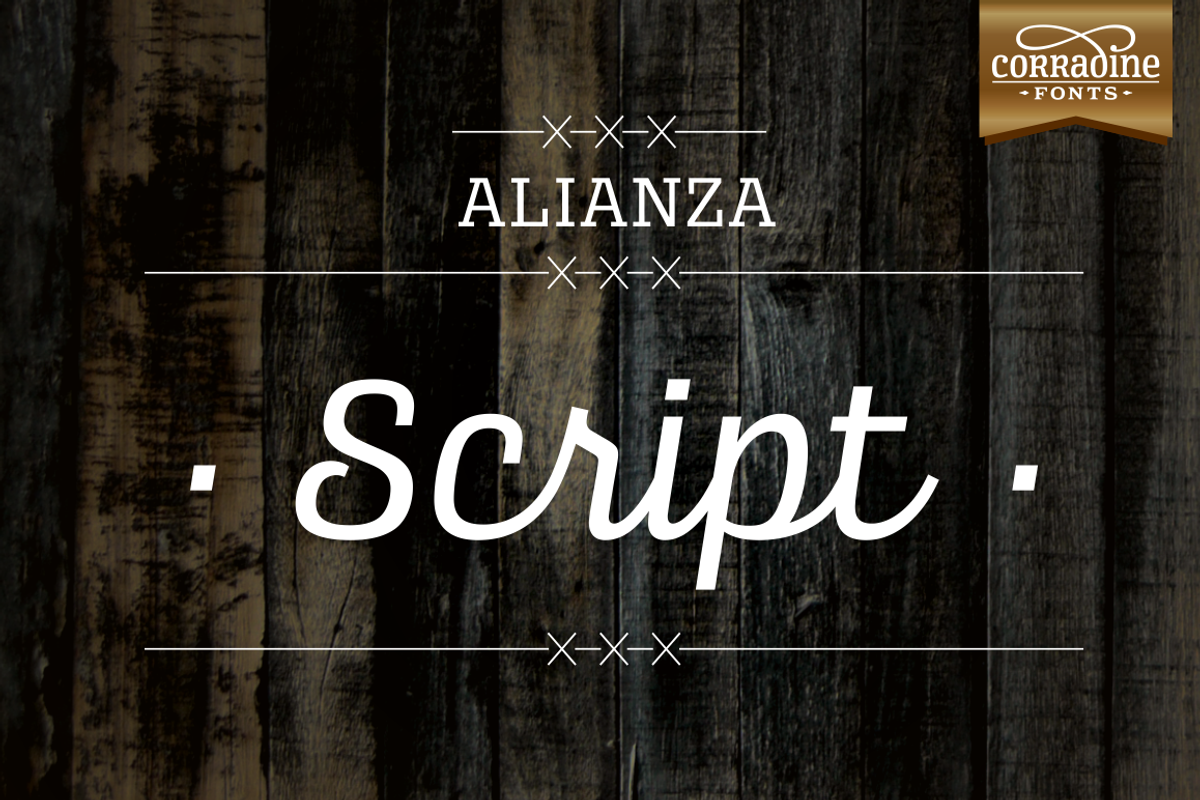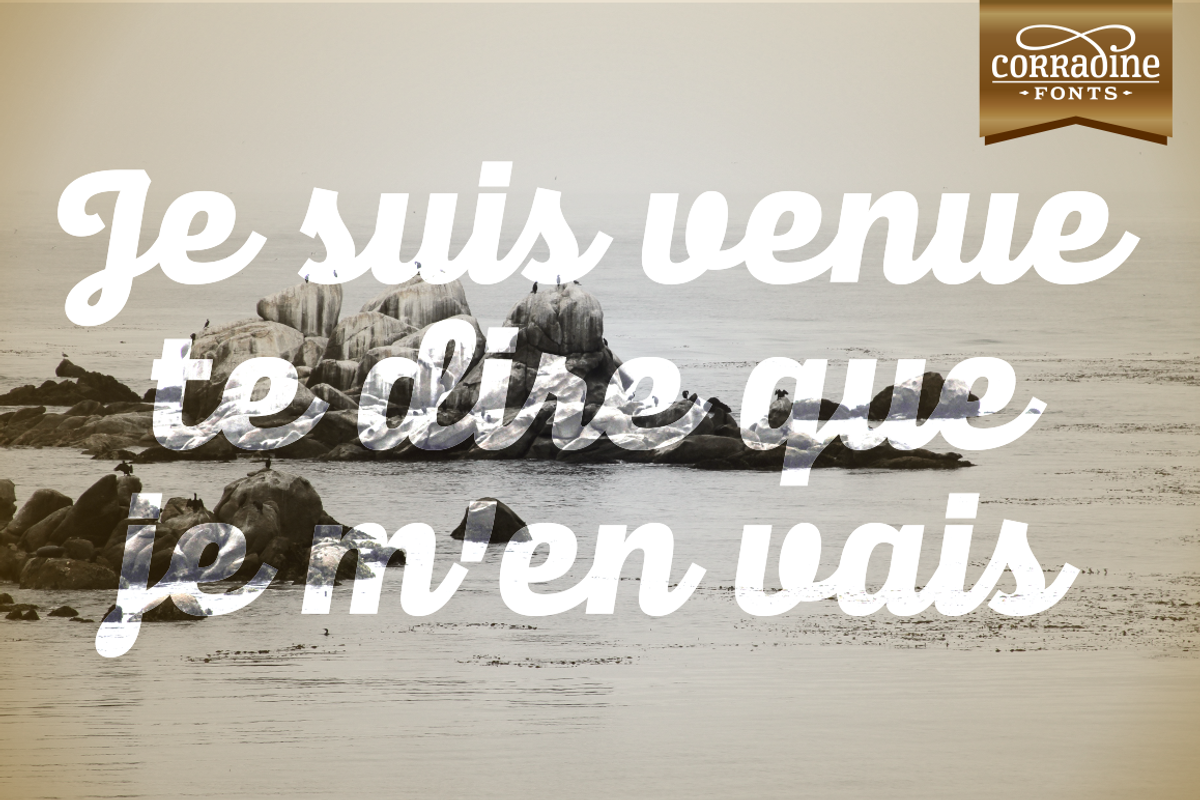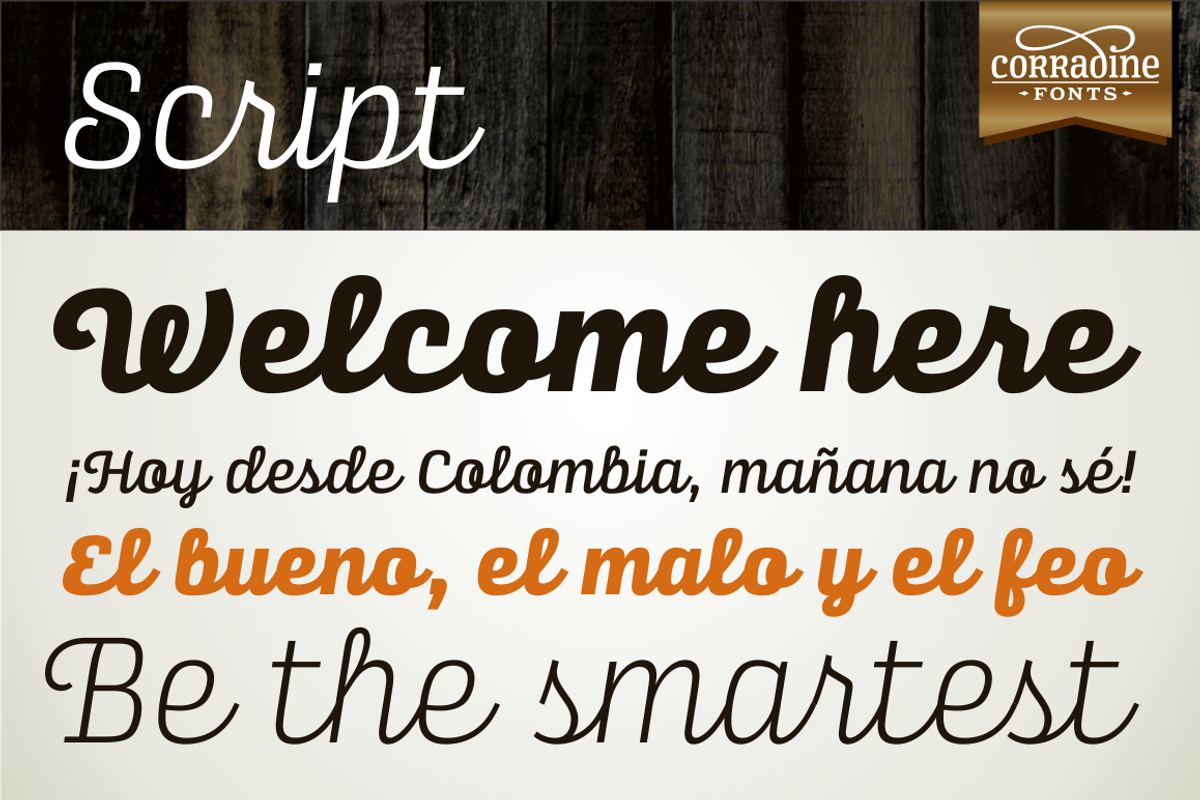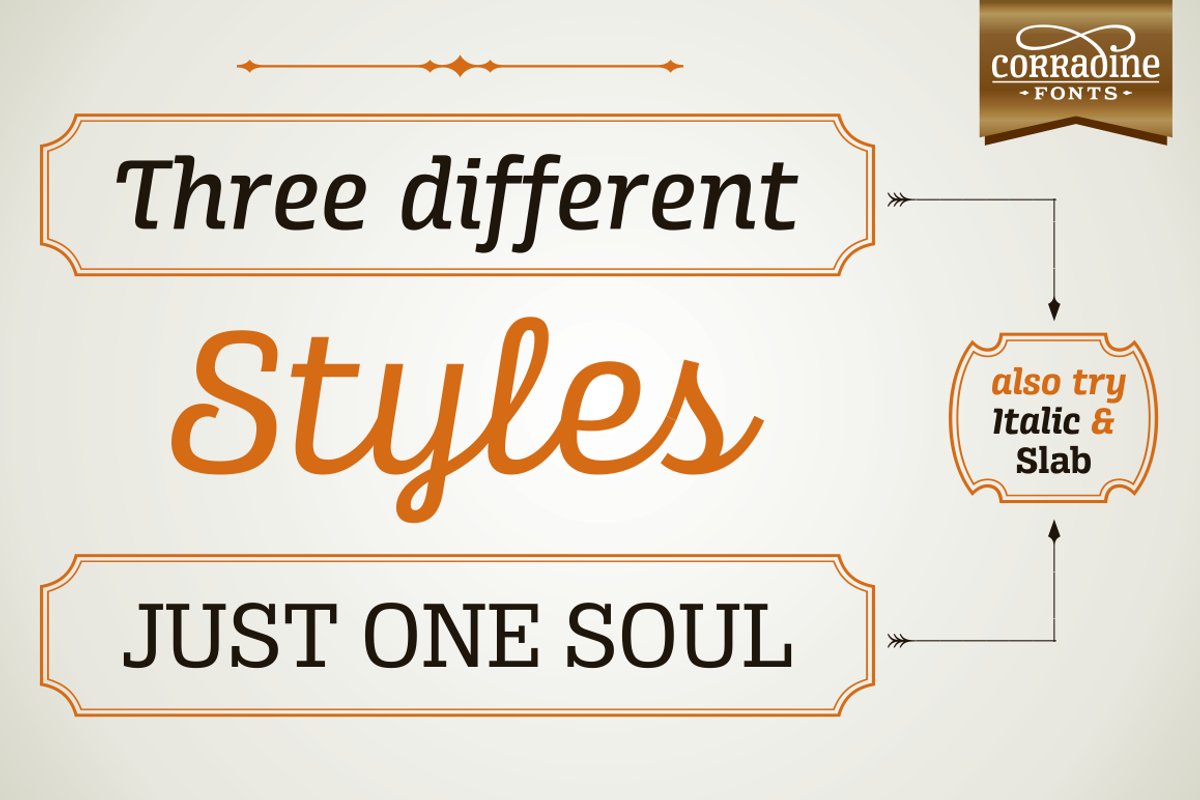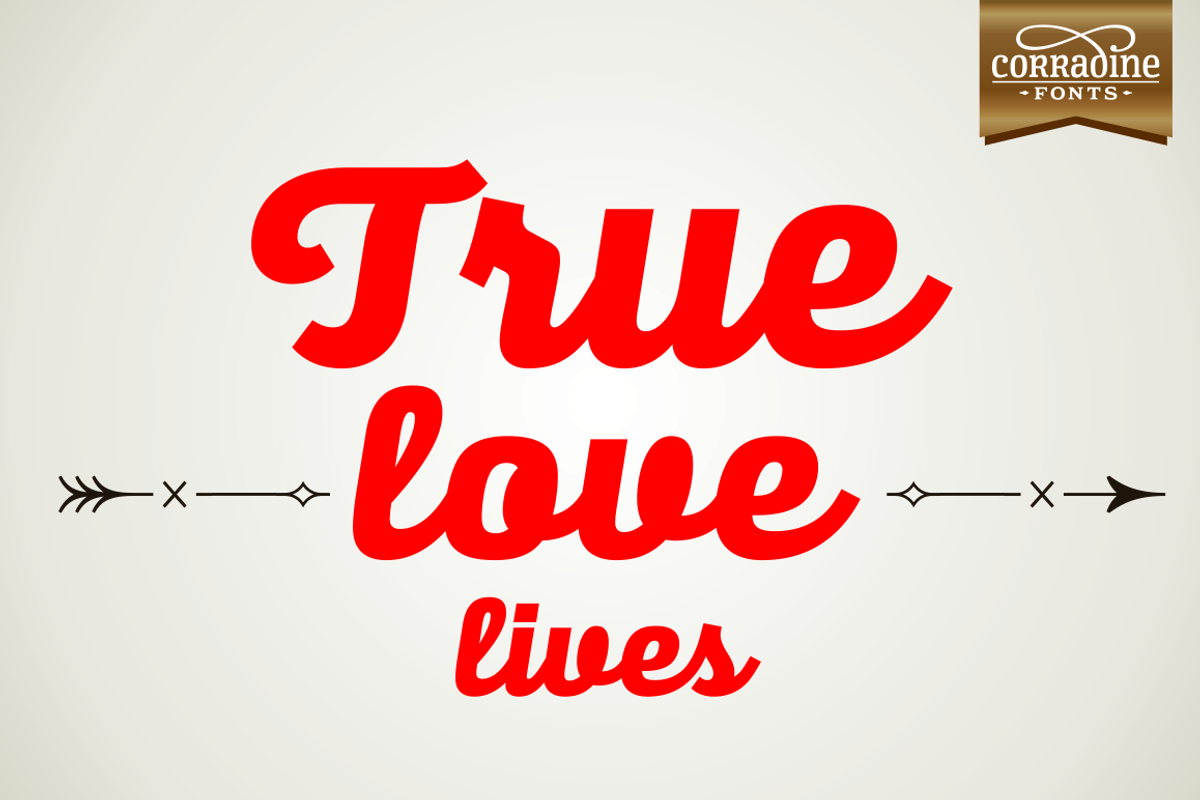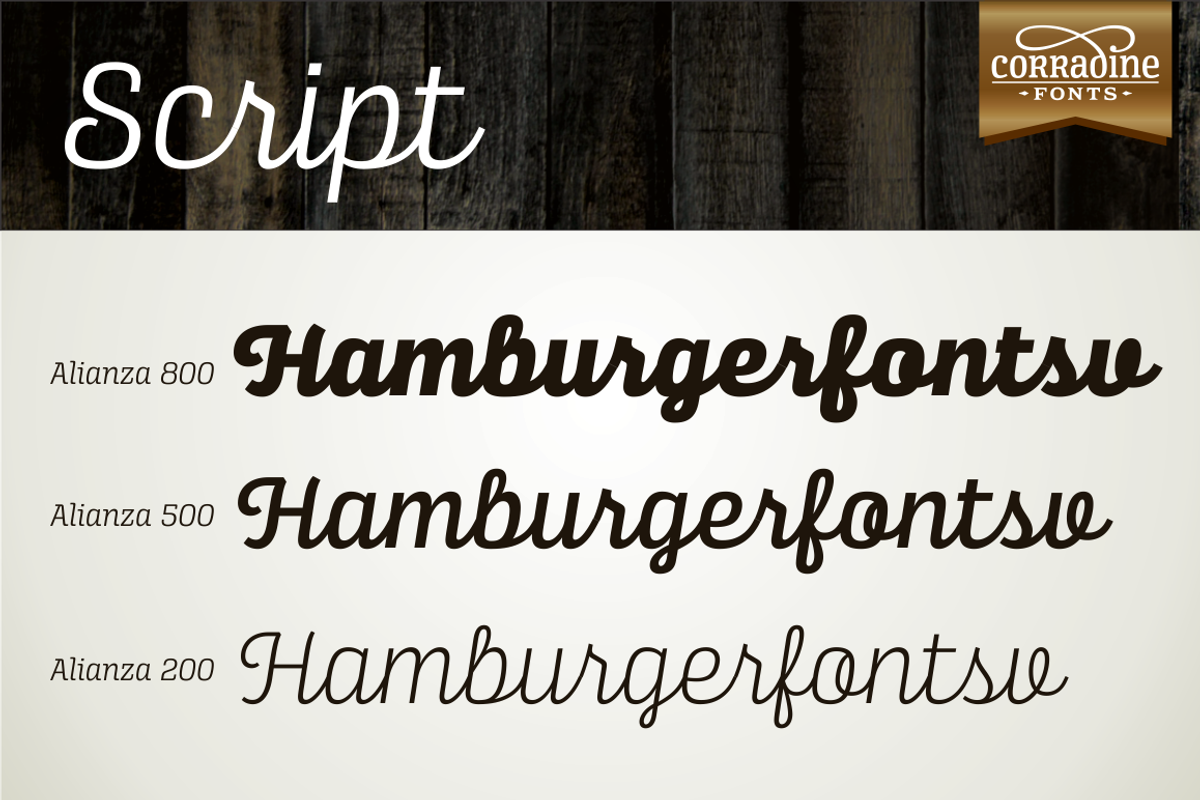
Alianza Script
Alianza Script by Corradine Fonts is a font selected for branding, posters, packaging, typography.
- Alianza is a complex typographic system with slab soul, which includes three different but complementary styles so far: Slab, italic and scr
Why Alianza Script is worth a look
Alianza Script by Corradine Fonts fits naturally into Branding, posters, packaging, typography.